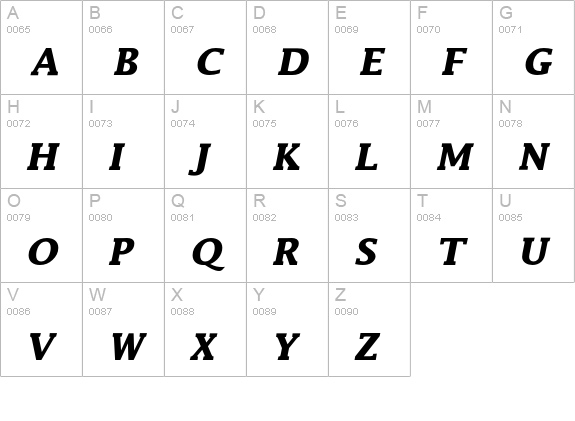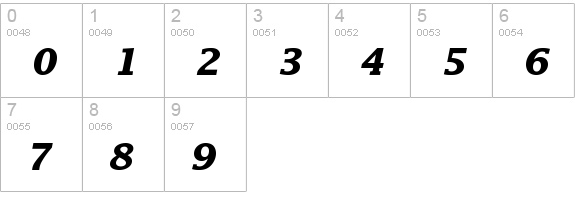
LucidaEF-BoldItalic Font Details
LucidaEF-BoldItalic font is a stylish and sophisticated typeface that exudes elegance and modernity. Its bold and italic design makes it perfect for adding emphasis and flair to your projects. The sleek curves and unique character shapes of this font will enhance any text, whether it's for print or digital use. What sets LucidaEF-BoldItalic font apart is that it is not only visually striking but also versatile and easy to read. Its strong presence commands attention while still maintaining a sense of sophistication and professionalism. The best part is that LucidaEF-BoldItalic font is completely free to download at FontsMarket.com. Whether you're working on a personal project, professional presentation, or creative design, this font will elevate your work to the next level. Don't miss out on the opportunity to enhance your typography with this stunning and freely available font.